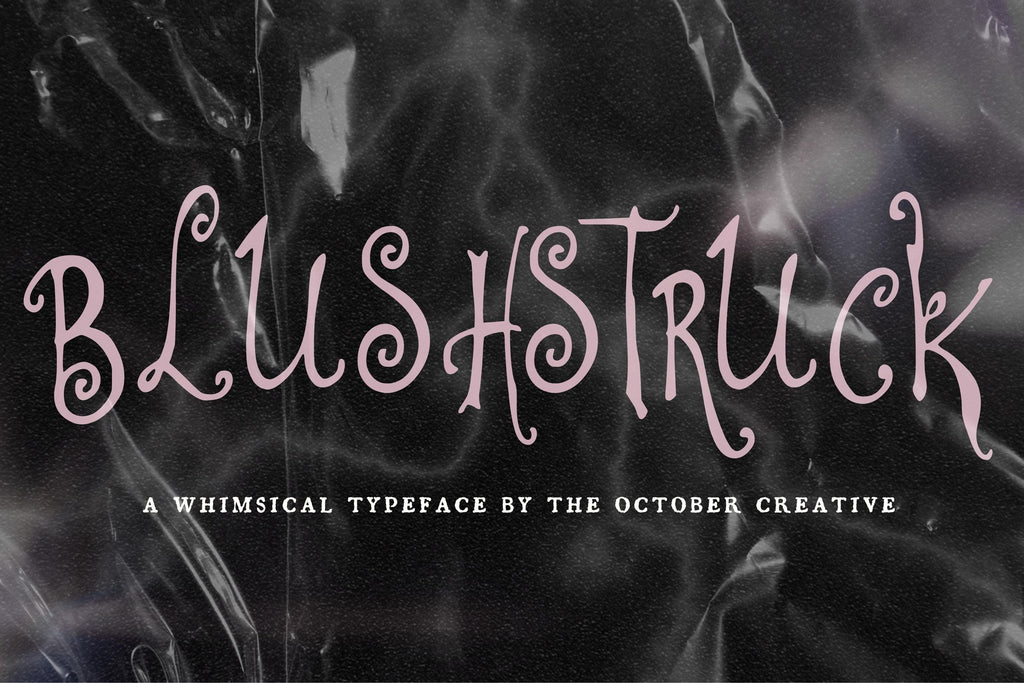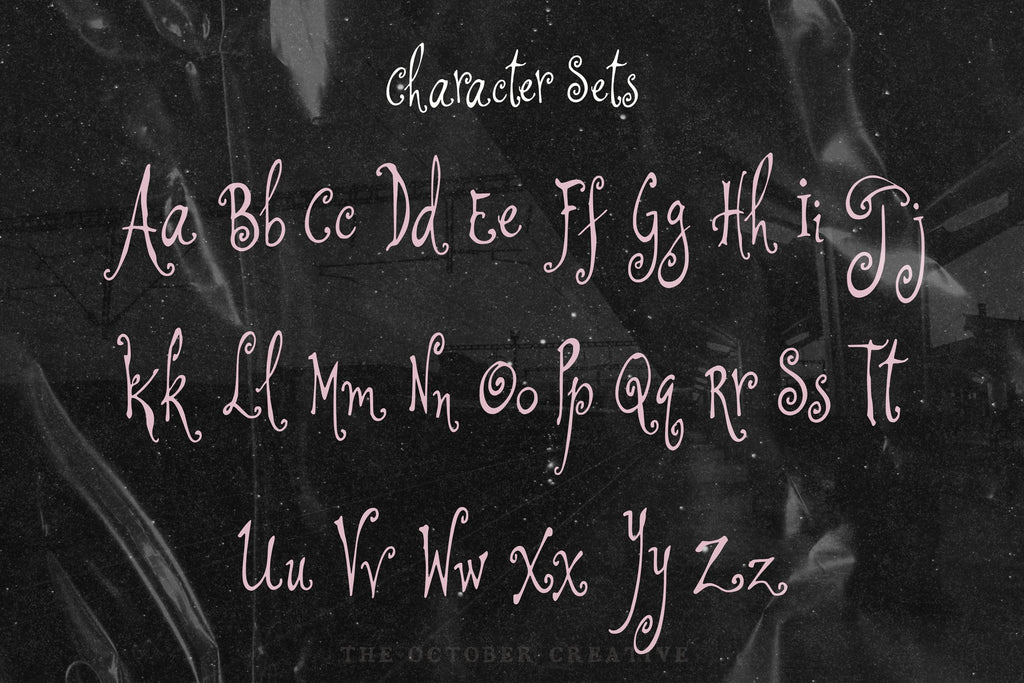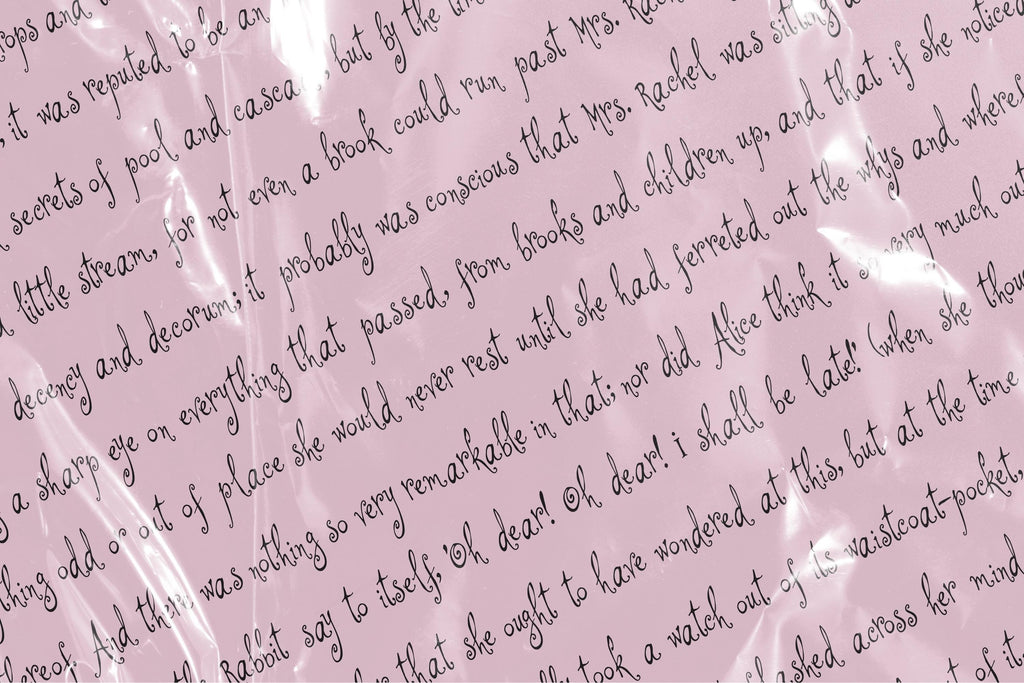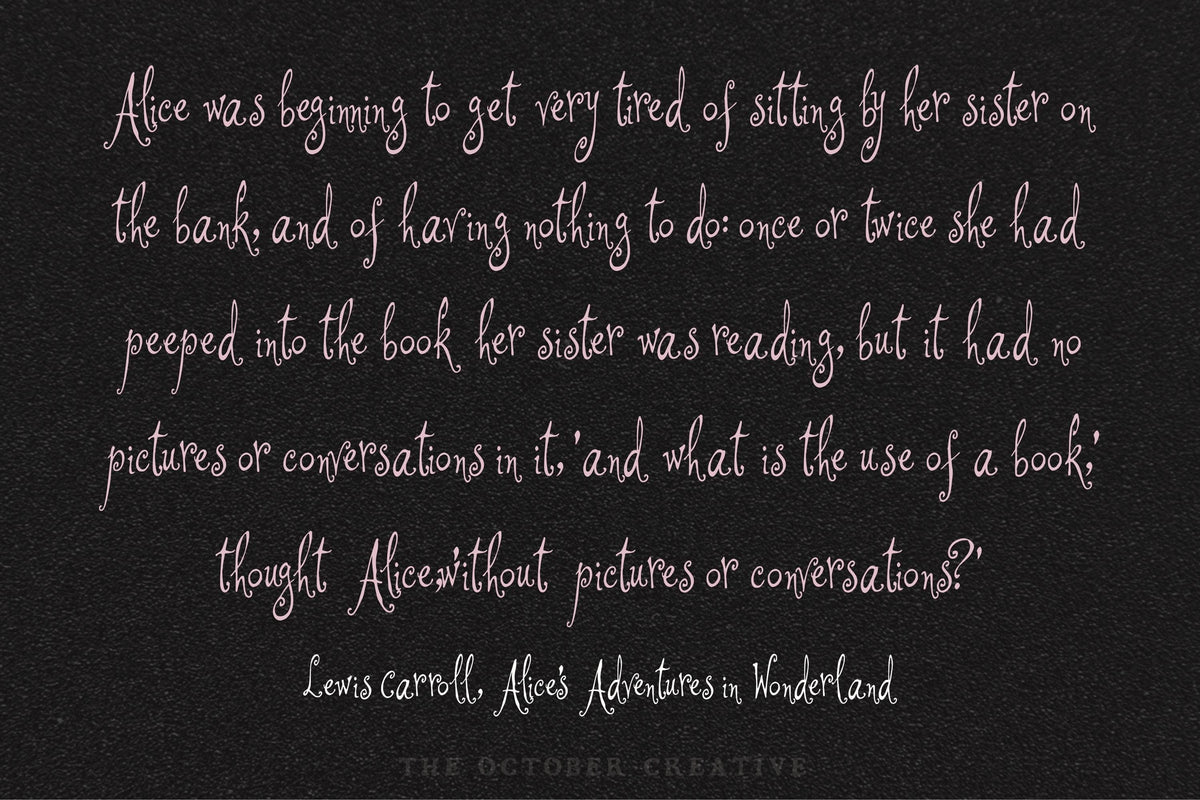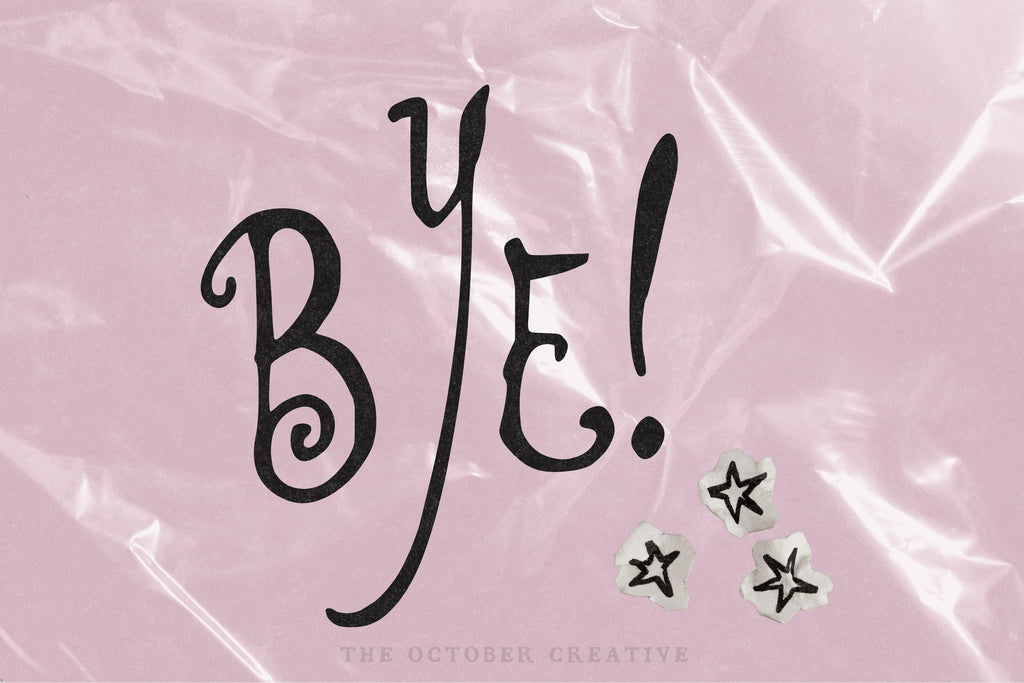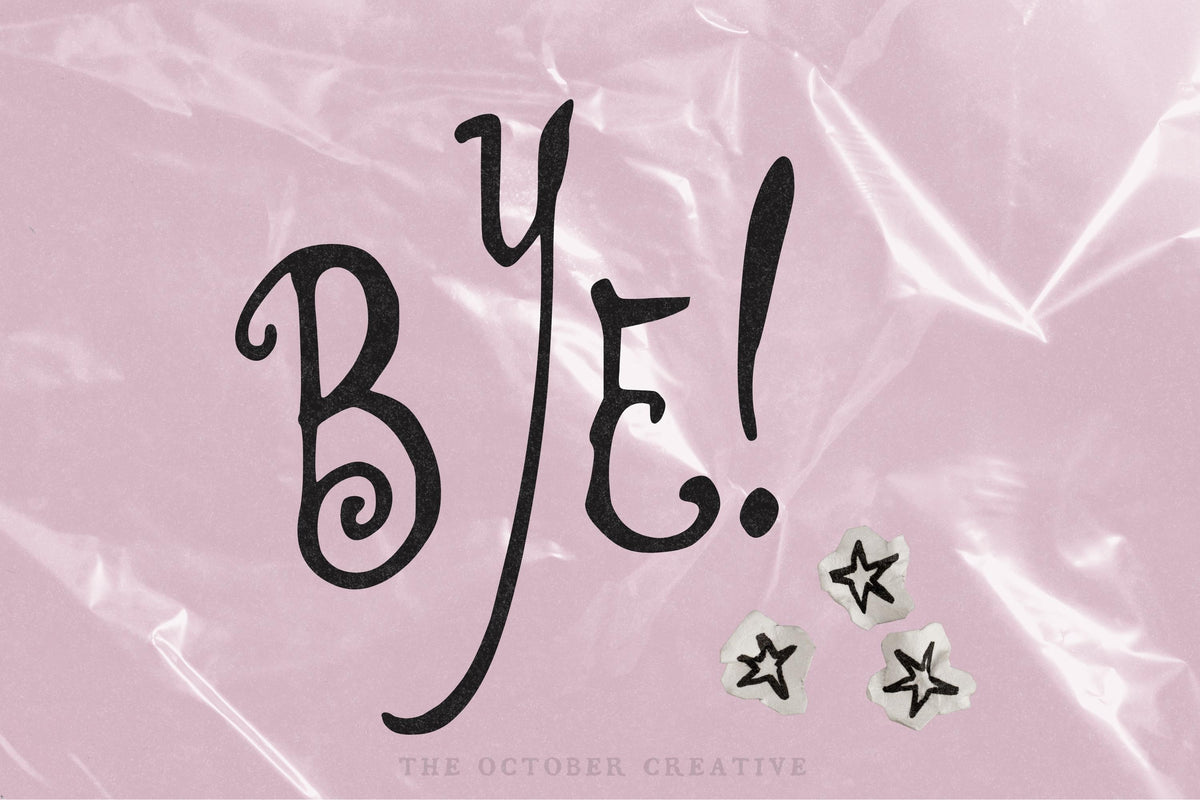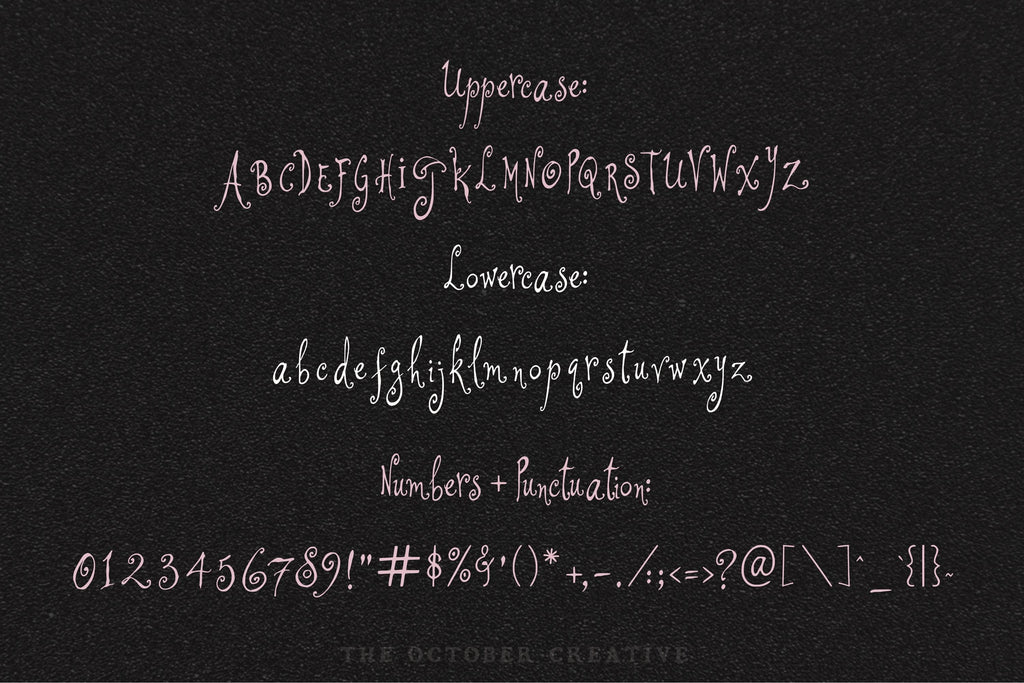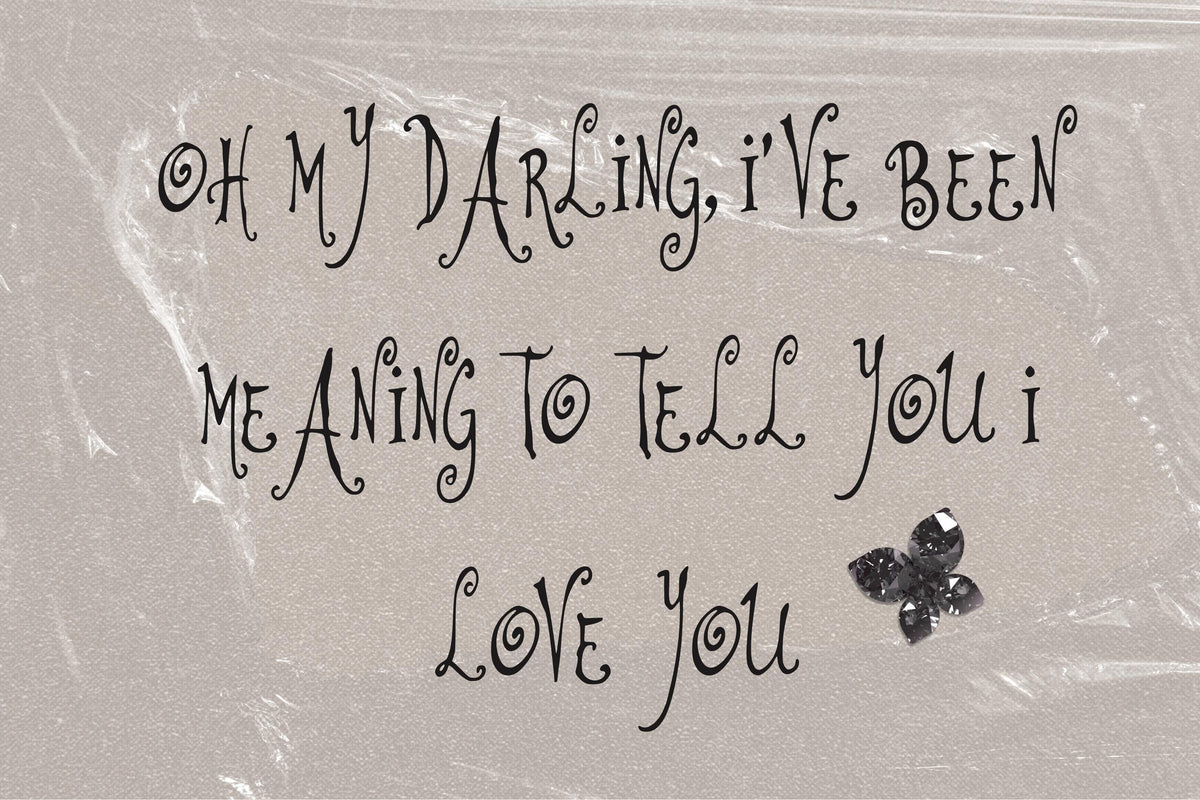
Blushstruck Font
Blushstruck is all little curls and gentle bounce, the sort of font that looks right at home on a bridal shower invitation. Use its delicate, spiraling letters for sweet party details, gift tags, and stationery with a little extra affection.